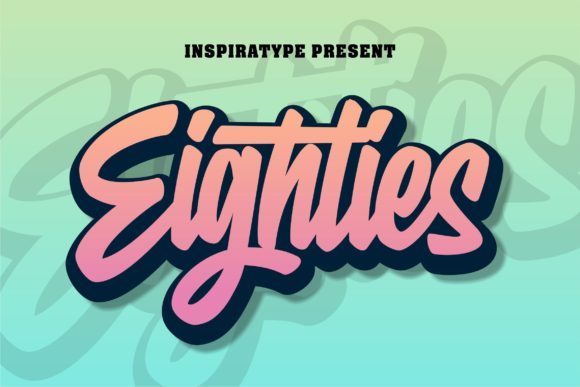
Dive into the realm of retro aesthetics with Eighties Font, the ultimate display font that captures the essence of the iconic 80s era. This remarkable creation by InspiraType is not just a font; it's a time machine that transports your designs back to the golden days of neon lights, arcade games, and synth-pop beats.
Eighties Font is the perfect choice for designers seeking to create captivating posters, fliers, album covers, social media graphics, or any project yearning for a touch of vintage charm. Its distinctive letterforms, inspired by the retro typography of the 1980s, exude a timeless appeal that resonates with audiences of all ages.
With Eighties Font, you'll embark on a nostalgic journey, evoking memories of classic movies, retro video games, and the vibrant pop culture that defined a generation. Its bold and playful characters will add an instant dose of personality and energy to your designs, making them stand out from the crowd.
This exceptional font is not merely a collection of letters; it's an invitation to explore a bygone era, a chance to relive the excitement and vibrancy of the 1980s. Whether you're a seasoned designer or just starting, Eighties Font will ignite your creativity and elevate your projects to new heights.
So, step into the time warp and let Eighties Font transport you to a world of nostalgia and retro chic. Embrace the 80s aesthetic and unleash your creativity with this captivating and versatile display font. Get ready to make a statement and leave an unforgettable impression on your audience.